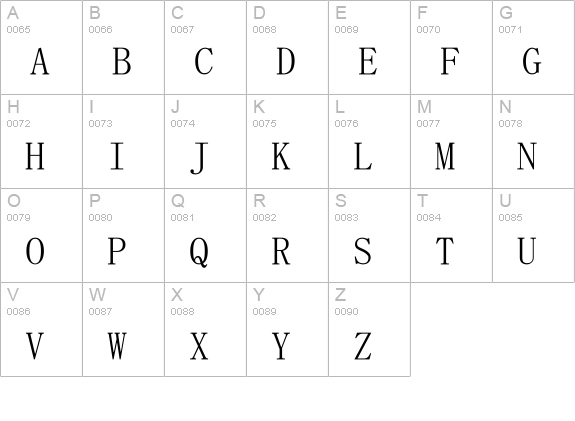
MS Mincho Font Details
MS Mincho is a classic Japanese font known for its elegant and traditional style. It is a serif font with a timeless appeal, making it perfect for formal documents, invitations, and other printed materials. The characters are well-designed, with clear and sharp details that enhance readability. What makes MS Mincho even more appealing is that it is available for free download at FontsMarket.com. This means that you can easily access and use this beautiful font for your personal or professional projects without any cost. Whether you are creating a brochure, designing a logo, or working on a presentation, MS Mincho offers a sophisticated touch that will elevate your work to the next level. With its blend of sophistication and simplicity, MS Mincho is a versatile font that can be used in various design contexts. Its availability for free download at FontsMarket.com makes it a valuable asset for designers, students, and anyone looking to add a touch of elegance to their projects. Experience the beauty and functionality of MS Mincho today by downloading it from FontsMarket.com.